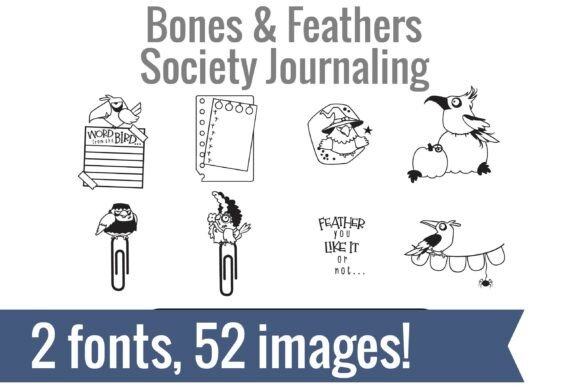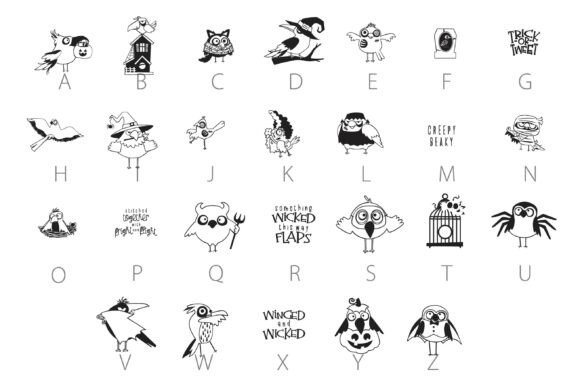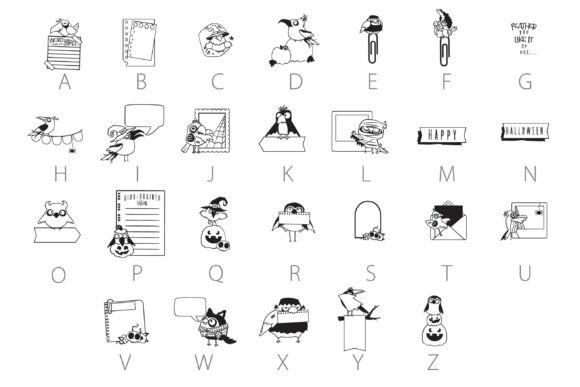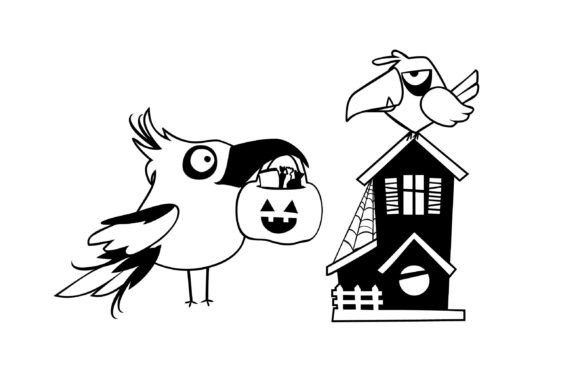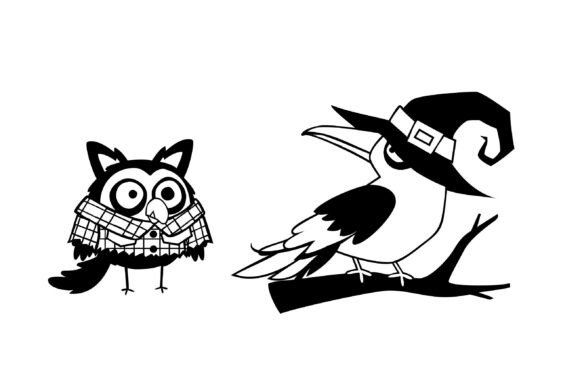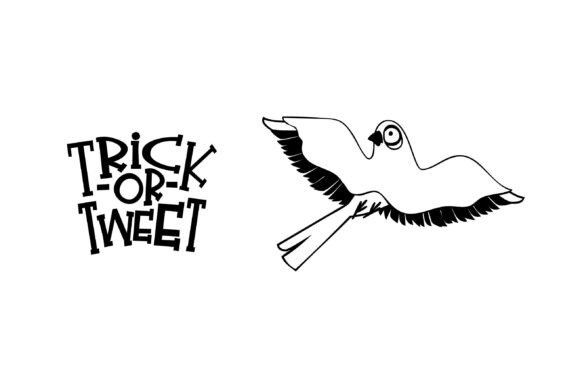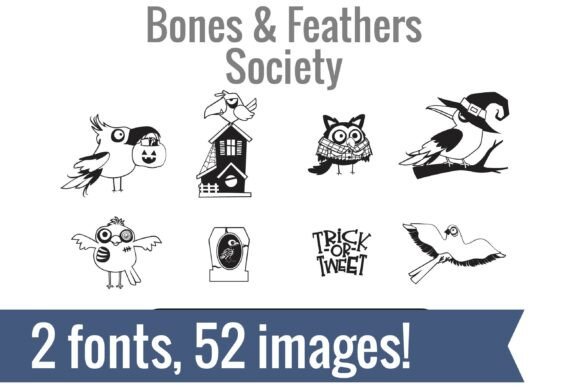
Unlock Endless Creativity with Bones and Feathers Society Font
Are you tired of spending hours searching for the perfect icons and graphics for your designs? Look no further! The Bones and Feathers Society Font is here to revolutionize your creative process. This bundle includes two perfectly coordinated dingbat fonts, featuring Halloween birds and journaling elements that will take your designs to the next level.
What are Dingbat Fonts?
Dingbat fonts are a type of font that consists of symbols, icons, and graphics rather than traditional letters. They are perfect for designers and crafters who want to add a personal touch to their work. With the Bones and Feathers Society Font, you’ll get access to dozens of cohesive, scalable designs that can be used for a variety of projects.
What’s Included in the Bundle?
The Bones and Feathers Society Font bundle includes two dingbat fonts, each featuring Halloween birds and journaling elements. These fonts are perfectly coordinated, making it easy to create stunning designs that are cohesive and visually appealing. With these fonts, you’ll get:
- Dozens of scalable designs at your fingertips
- Halloween birds and journaling elements
- Perfectly coordinated fonts for a cohesive look
How to Use the Bones and Feathers Society Font
- Vinyl cutting and paper crafts
- Planners and journals
The Bones and Feathers Society Font is perfect for designers and crafters who want to take their work to the next level. With this font, you’ll enjoy:
- Endless creativity and design possibilities
- Time-saving and efficiency
- Professional-looking designs without the hassle
- Scalable designs that can be used for various projects
Tips and Tricks for Using the Bones and Feathers Society Font
Here are some tips and tricks to help you get the most out of the Bones and Feathers Society Font:
- Experiment with different font sizes and colors to create unique designs
- Combine the fonts with other design elements for a personalized look
- Use the fonts for seasonal and holiday-themed designs
- Take advantage of the scalable designs for various projects
The Bones and Feathers Society Font is a game-changer for designers and crafters. With its two perfectly coordinated dingbat fonts, you’ll have access to dozens of scalable designs that can be used for a variety of projects. Say goodbye to hours of searching for the perfect icons and graphics, and hello to endless creativity and design possibilities. Unlock your full creative potential with the Bones and Feathers Society Font today!